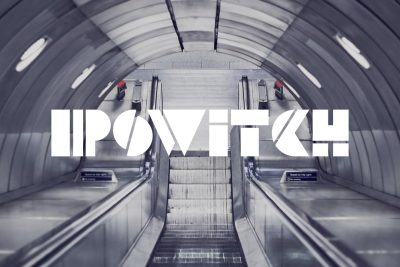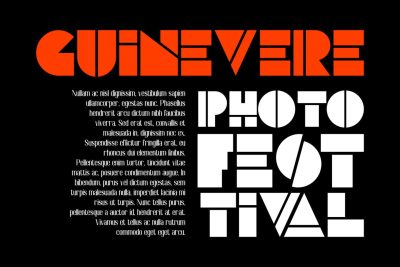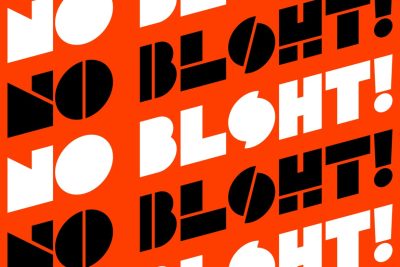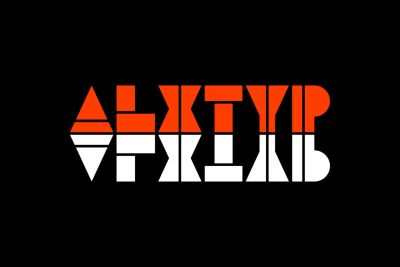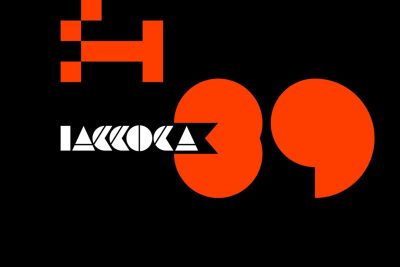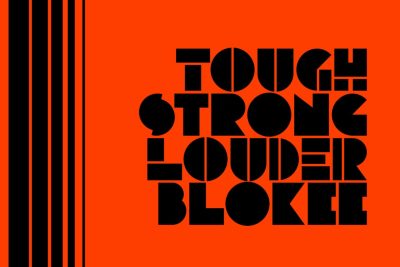
Music font BLOKEE is a bold, modern display font designed to grab attention instantly. Its geometric shapes, sharp lines, and block style create a look that is both futuristic and stylish. Each letter blends angles and curves seamlessly, resulting in a unique and eye-catching design. As a result, BLOKEE works perfectly for titles, logos, and social media visuals.
What makes BLOKEE stand out is its versatility. Not only does it shine on vibrant backgrounds, like bold red, but it also looks stunning on monochrome or muted tones. Whether used for digital media or print, the font consistently delivers high visual impact. For Instagram creators, BLOKEE adds a modern, edgy touch to posts, stories, and highlights, helping content stand out effortlessly. Additionally, its bold structure ensures readability, even at smaller sizes, making it highly functional.
Furthermore, BLOKEE provides endless creative possibilities. You can combine it with minimalist design elements for a clean, sleek look, or pair it with bold visuals for maximum impact. Whether youโre designing for personal projects, professional branding, or event promotions, BLOKEE ensures your message looks powerful and stylish.
Who Should Use Music Font BLOKEE?
BLOKEE is ideal for graphic designers, content creators, and brands aiming for a bold, modern aesthetic. Moreover, social media influencers can use it to create eye-catching posts and professional visuals. Its futuristic style also suits tech enthusiasts, digital artists, and gaming channels looking for sleek and innovative designs.
Additionally, businesses in fashion, streetwear, or tech will benefit from BLOKEE. It works perfectly for logos, posters, advertisements, and product packaging. Thanks to its bold and confident appearance, this font gives any project a strong, contemporary edge.
Furthermore, BLOKEE is great for designers experimenting with urban, retro, or futuristic styles. It works particularly well for event flyers, album covers, and digital campaigns. By amplifying visuals, this font ensures your designs stand out in crowded digital spaces.
Lastly, educators, bloggers, and creative entrepreneurs can also explore BLOKEE for presentations, e-books, and other marketing materials. Its bold style not only attracts viewers but also keeps them engaged. If you want your projects to look strong, modern, and unique, BLOKEE is the perfect choice to elevate your design work.